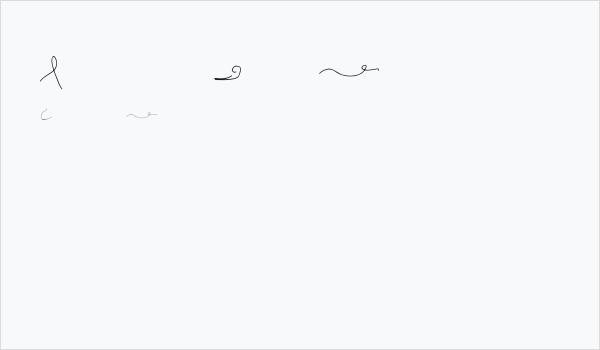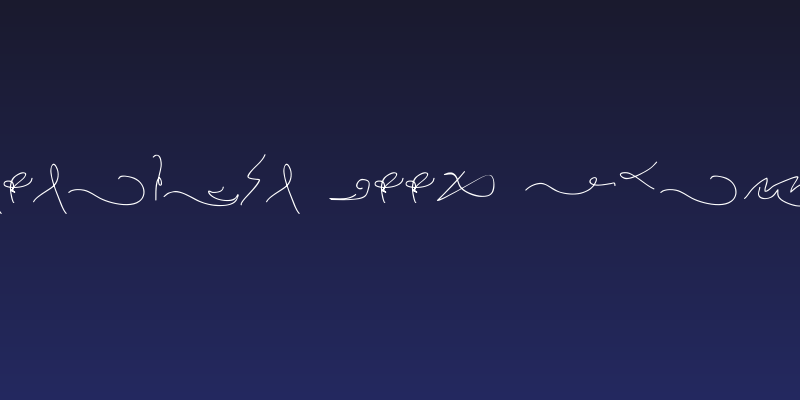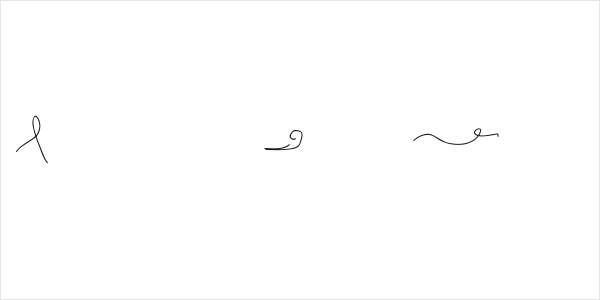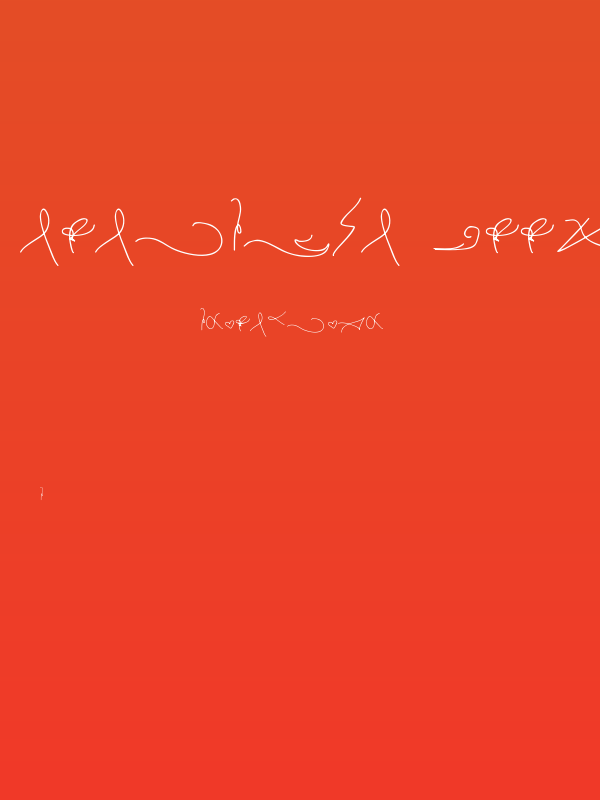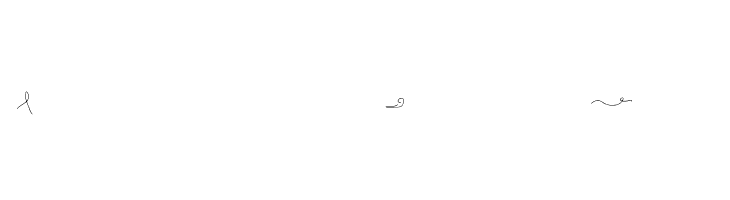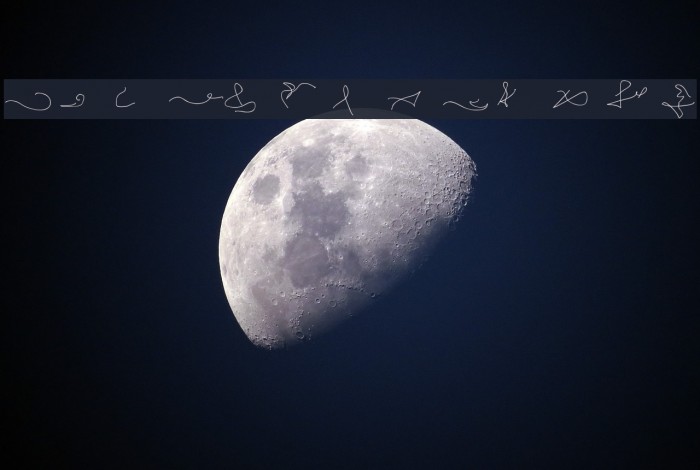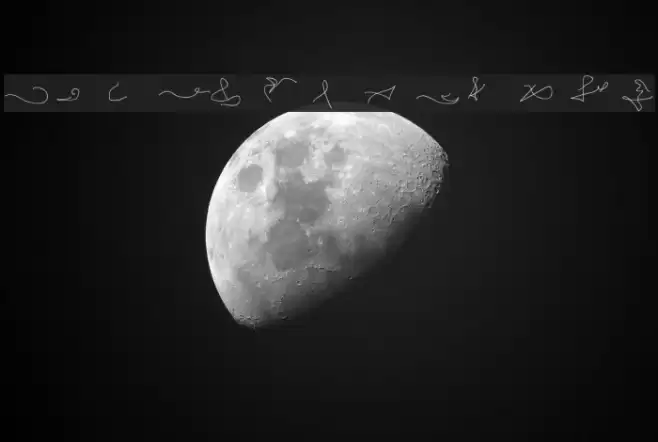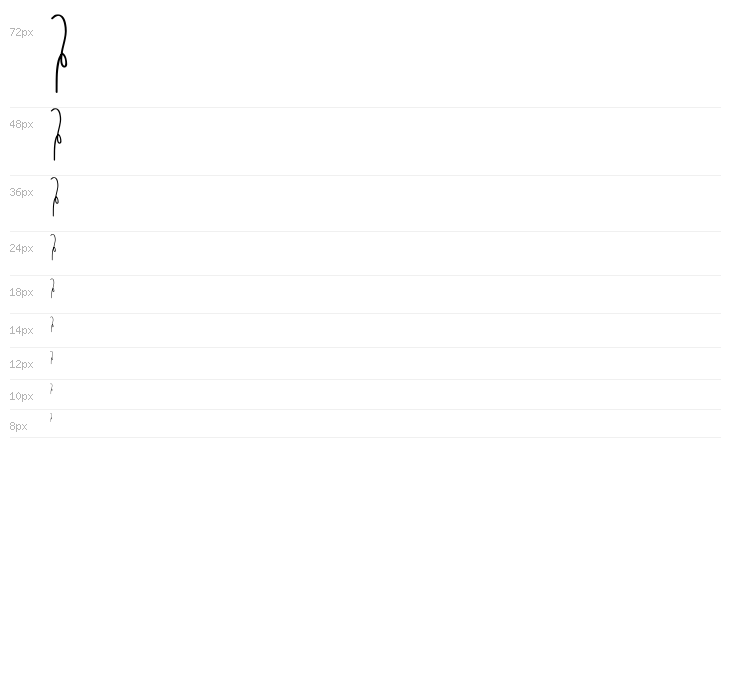
Gogating Book Draw Font
Gogating Book Draw Description
This font features an elegant and flowing script style, characterized by its intricate and delicate curves. Each letter is crafted with a sense of fluidity and grace, making it ideal for designs that require a touch of sophistication and artistry. The strokes are thin and consistent, providing a harmonious and balanced appearance. The overall aesthetic is reminiscent of calligraphy, with a modern twist that makes it suitable for contemporary applications. The font's unique style is perfect for creating visually appealing and memorable designs.
| Use Case | Logos, Invitations, Decorative text |
| Proposed Projects | Ideal for wedding invitations, elegant branding, artistic posters, and decorative elements. |